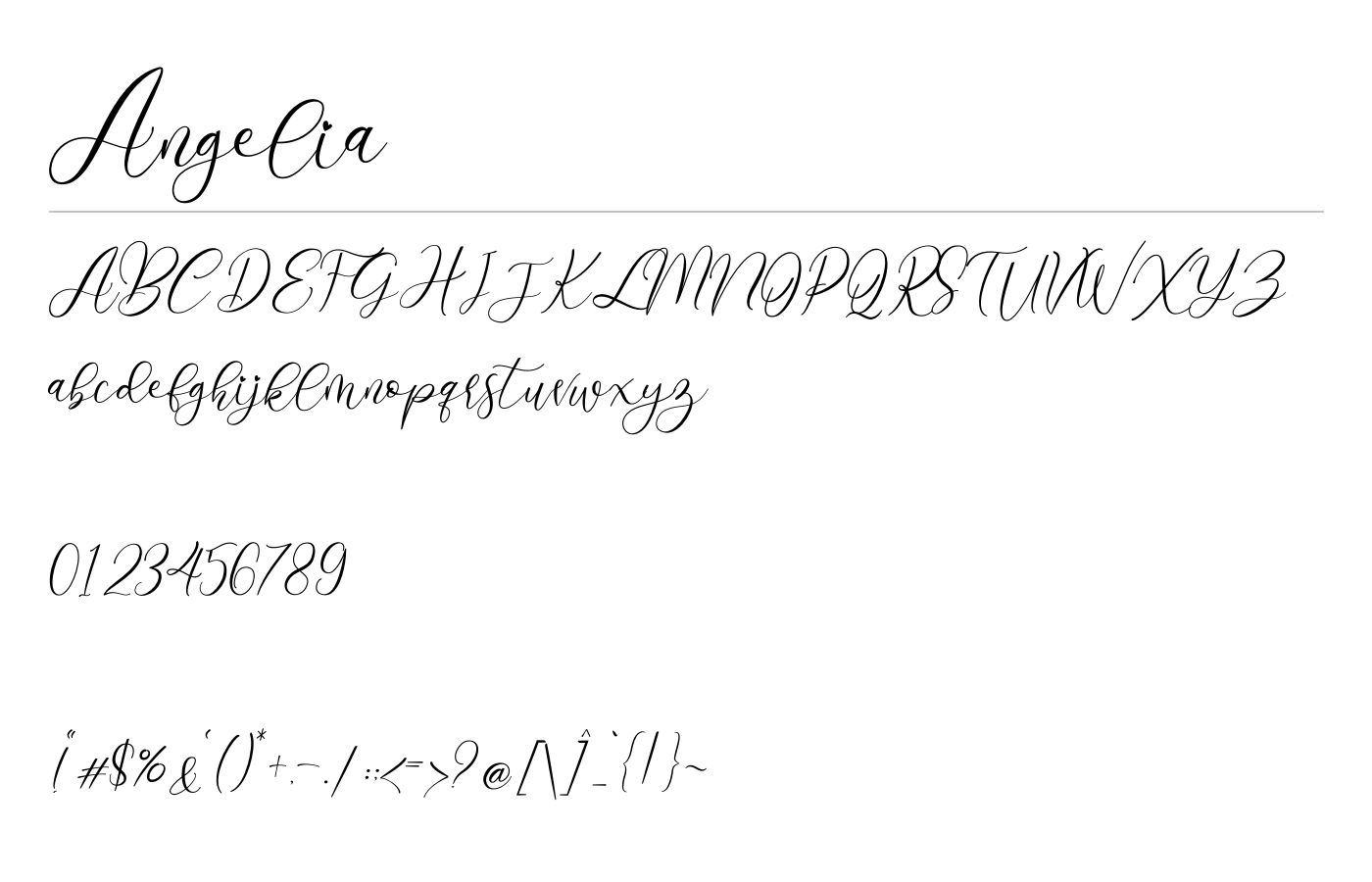
Angelia is an elegant script font characterized by its delicate, flowing lines and graceful curves that create a refined and sophisticated look. Its slender strokes and high contrast give it a light, airy feel, making it ideal for invitations, luxury branding, and feminine design projects where a touch of elegance and charm is desired. This font works beautifully in headlines and decorative text, lending a romantic and stylish personality to any creative work.
Angelia Font
About Angelia Font
| Font family | Angelia Font |